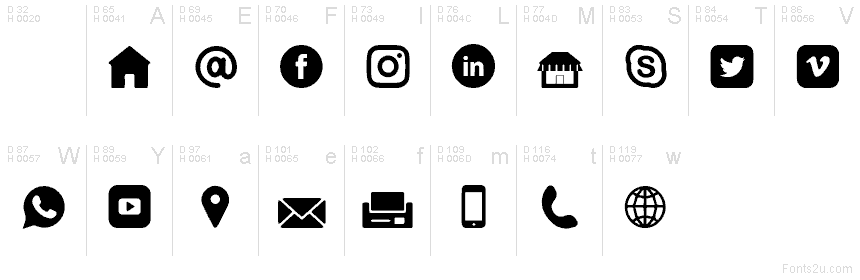
SufiAdresIkon
SufiAdresIkon font by Sufyani Bıyık is a free dingbats signs font that tidies up the messy business of contact details. The set delivers bold, ink-solid pictograms—pin, envelope, laptop, smartphone, handset, globe—with consistent weight and roomy counters, so they read instantly at a glance. Because they’re type, they drop into any layout, scale cleanly, and stay sharp in print or on screens without hunting for separate SVGs.
Using SufiAdresIkon, you can mark up business cards, website footers, email signatures, app contact sheets, event flyers, storefront signage, and simple maps with quick, universal clarity. The rhythm feels even and confident, letting text breathe around the icons. For a cohesive look, pair this free font with a neutral sans and keep icon size one step smaller than your headings to maintain hierarchy.